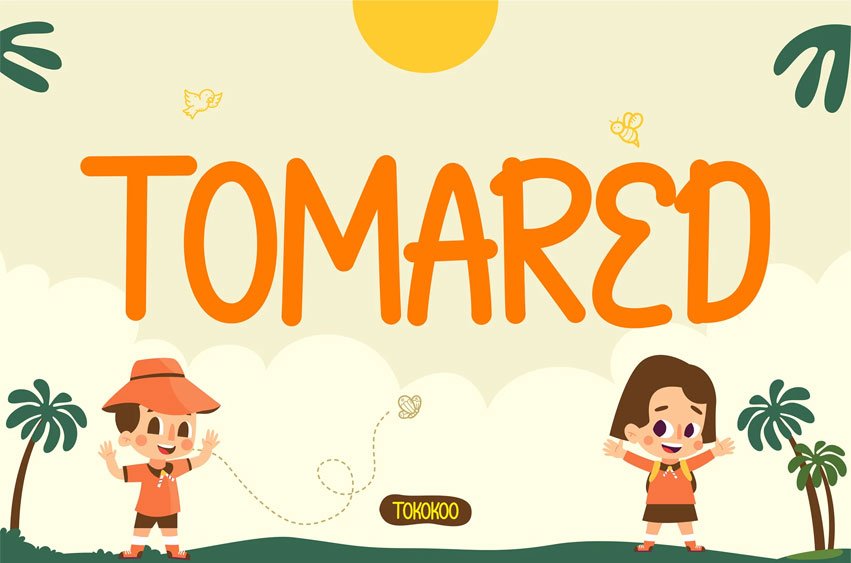
Tomared Font introduces a child-focused display style that merges playful outdoor lettering, rounded proportions, and a bouncy baseline, creating a warm aesthetic perfect for youthful storytelling. Its soft curves and expressive rhythm reflect the friendly spirit seen in kids’ camp posters, nature adventures, and playful editorial layouts. Through its approachable structure, the font delivers a joyful vibe suited for designers who want a charming, human touch in youth-oriented branding.
The font’s visual character—organic shapes, loose stroke flow, and low-contrast forms—offers a naturally cheerful tone that fits modern design needs on Instagram, educational materials, family event campaigns, and community activity branding.
Crafted for designers who want to shape positive emotions, TOMARED excels in kids books, camp posters, outdoor brand promotions, youth event graphics, and story-driven social media layouts. Its playful motion attracts attention instantly, guiding viewers toward a sense of curiosity, exploration, and creativity. Whether you’re building a scout activity flyer or a nature-themed learning project, this typeface helps communicate warmth and wonder without visual clutter—perfect for shaping a clear, kid-friendly narrative.
Key Features : Friendly & Functional Design
- Rounded shapes that bring comfort and readability
- Youthful movement with a subtle bouncy baseline
- Whimsical strokes ideal for expressive storytelling
Optimized for Creative Markets
- Perfect for kids branding, posters, books, packaging, and digital content
- Works beautifully with nature, adventure, and outdoor-themed visuals
- Consistent rhythm for clean, joyful headlines
Design Problem Solver
- Instantly sets a playful tone
- Eases emotional connection for child-oriented audiences
- Creates eye-catching layouts without over-stylization